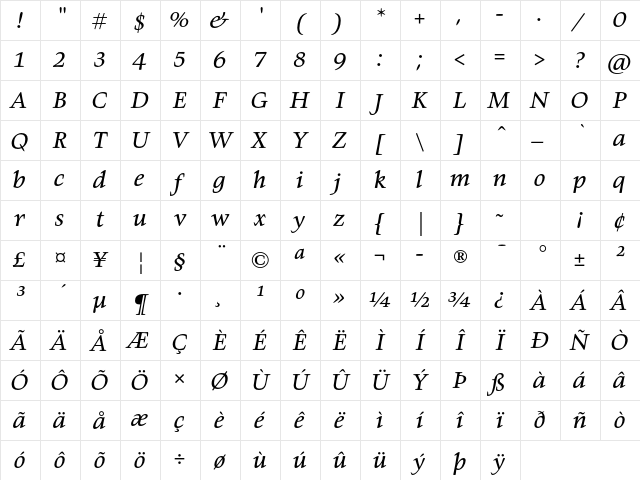
Complete Givens Antiqua Std Italic glyph index. Displaying only characters natively supported by Givens Antiqua Std Italic font.
Givens Antiqua Std is a composed and adaptable typeface that performs quietly and consistently across a wide range of design contexts. The slanted form adds forward momentum and visual energy.